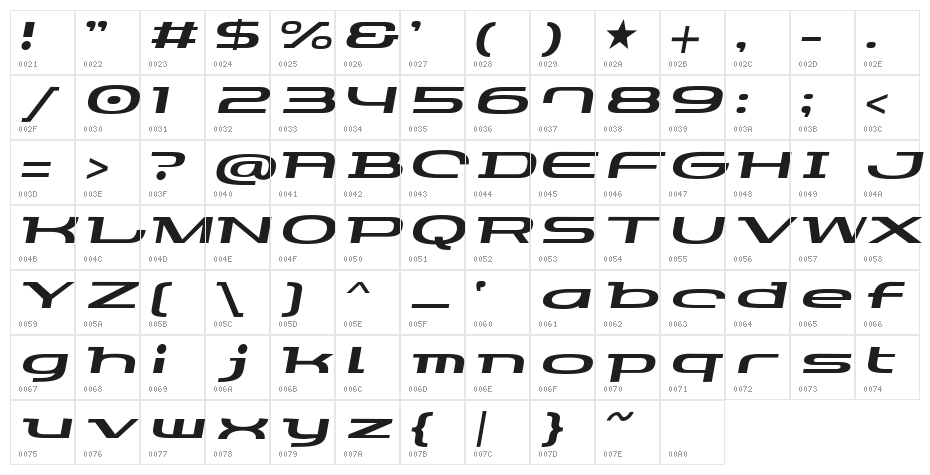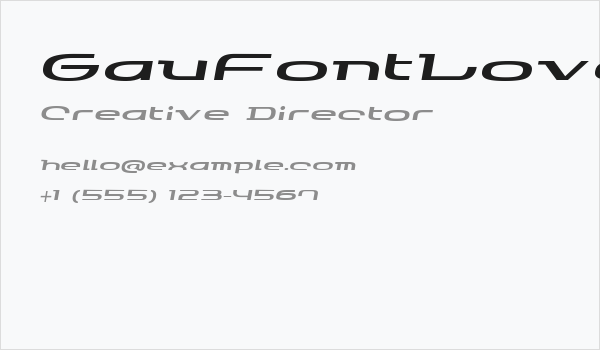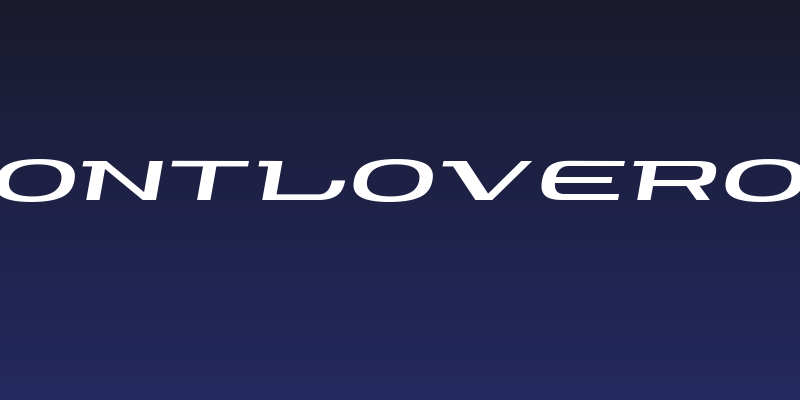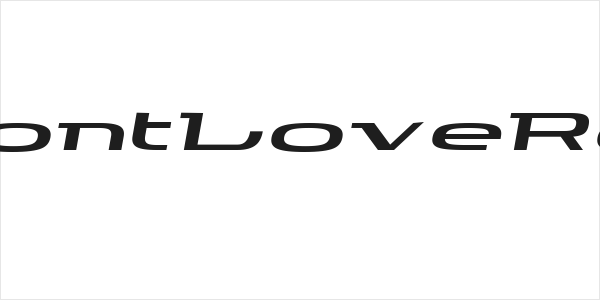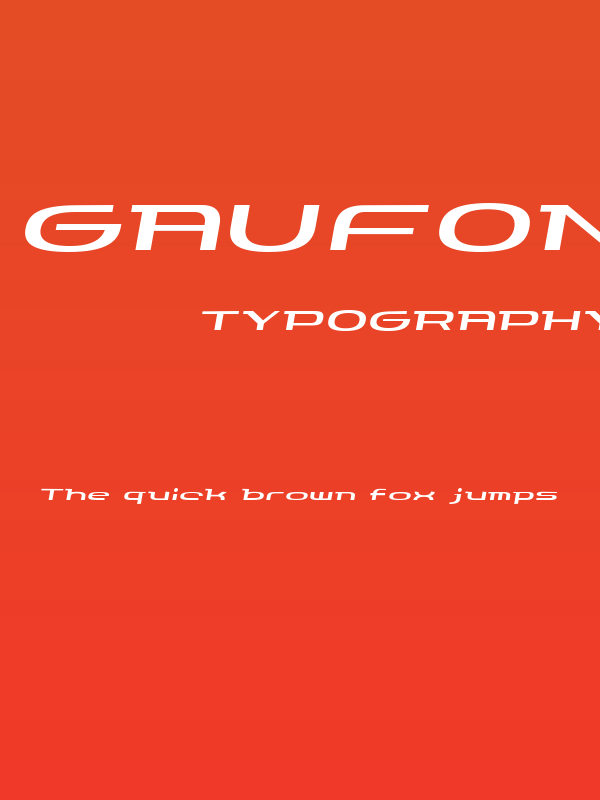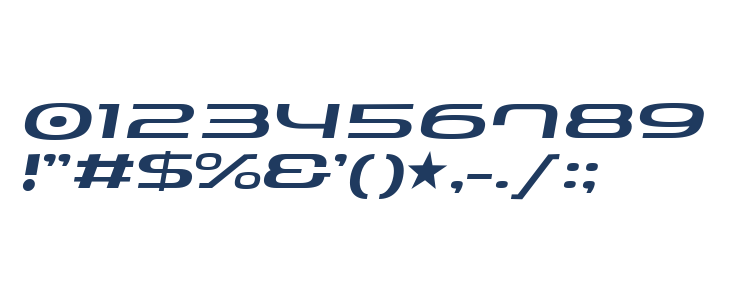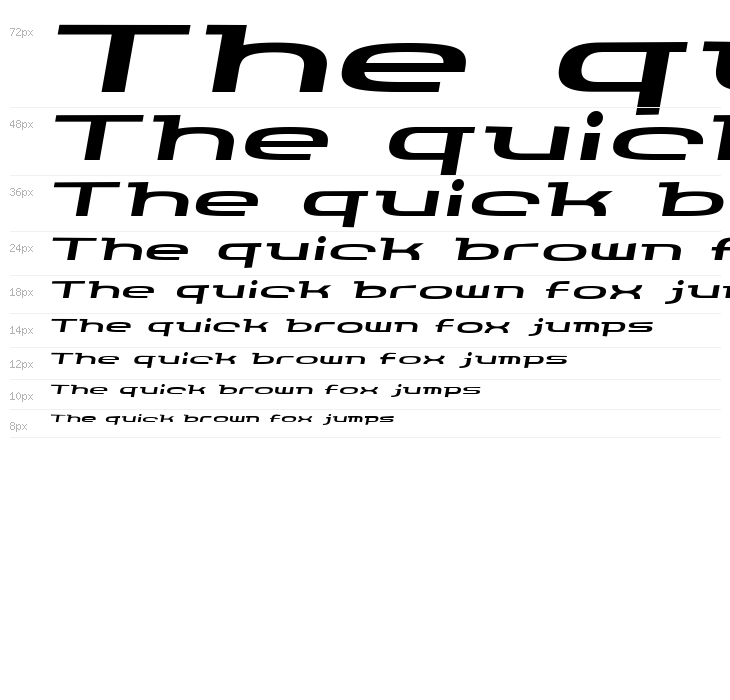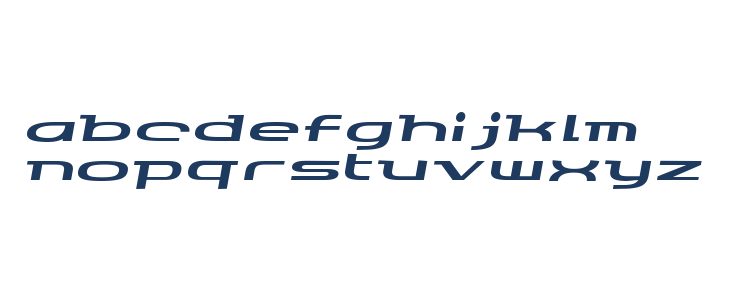
GauFontLoveRocket Font
GauFontLoveRocket Description
This font features a sleek, modern design with a futuristic flair. The characters are slightly italicized, giving a sense of motion and dynamism. The strokes are consistent in thickness, providing a medium contrast that enhances readability while maintaining a stylish appearance. The uppercase letters are bold and assertive, while the lowercase letters maintain a softer, more approachable feel. Numbers and special characters are designed with the same attention to detail, ensuring uniformity across all glyphs. This font is ideal for projects that require a modern, tech-savvy look.